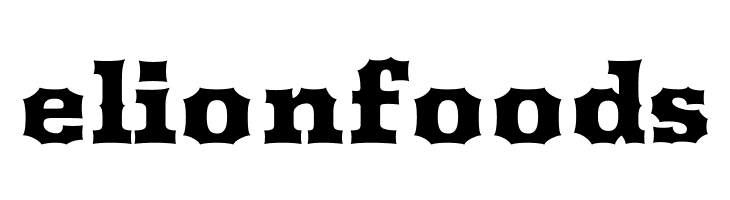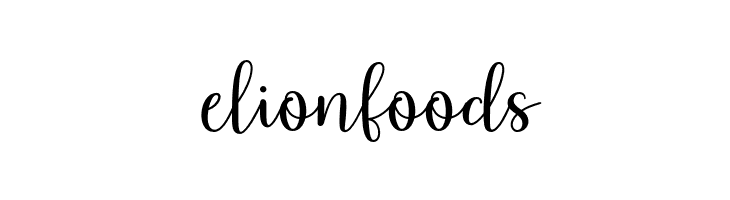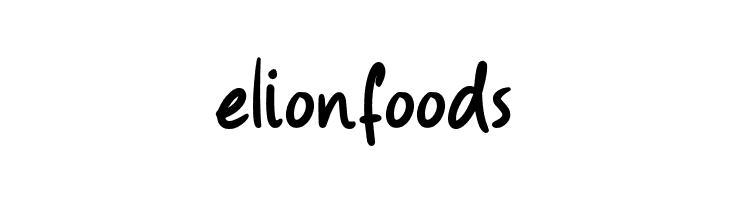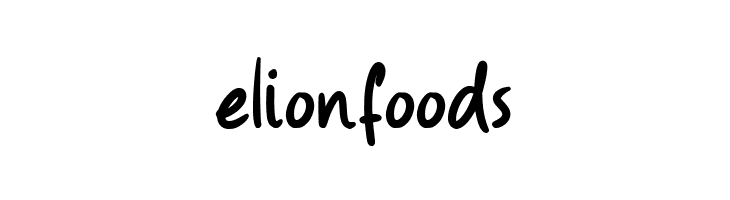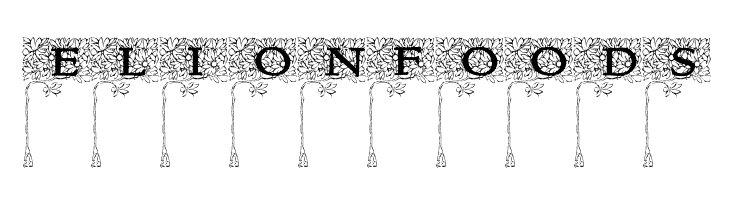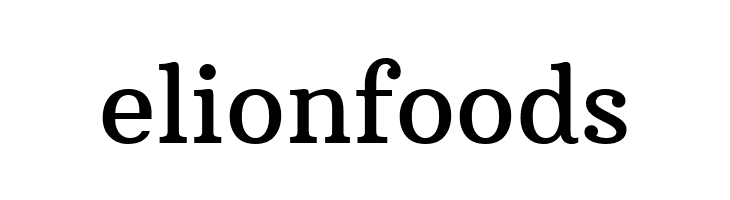
A playful, casual handwritten font with smooth, flowing letterforms.
A playful, casual handwritten font with smooth, flowing lines.
A modern, elegant script font with flowing curves and a handwritten feel.
An elegant, flowing script font with smooth, connected strokes.
A decorative font with intricate tree-like embellishments on uppercase letters.
A bold, slab serif font with a vintage Western style.
A bold, rugged font with sharp edges and pronounced serifs.
A bold, angular font with a vintage Western flair.
A robust slab serif font with medium contrast and strong serifs.